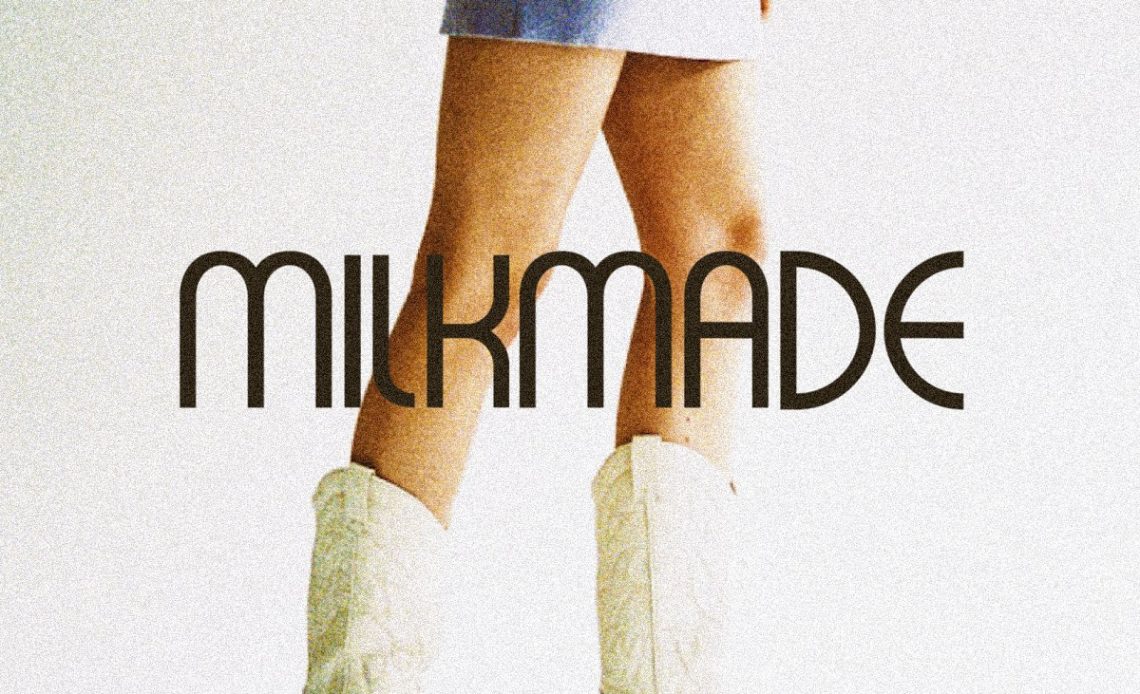
Looking for a retro sans-serif display typeface that perfectly captures the essence of your brand? Look no further than Milk Made, created by the talented Loryn Ipsum. Milk Made is a versatile and eye-catching font that is perfect for retro and young brands, gen z branding, logos, social media, and posters.
So why wait? Let Milk Made elevate your branding to the next level and capture the hearts of your customers with its retro charm and modern versatility. Download Milk Made today and start creating designs that are truly unforgettable.